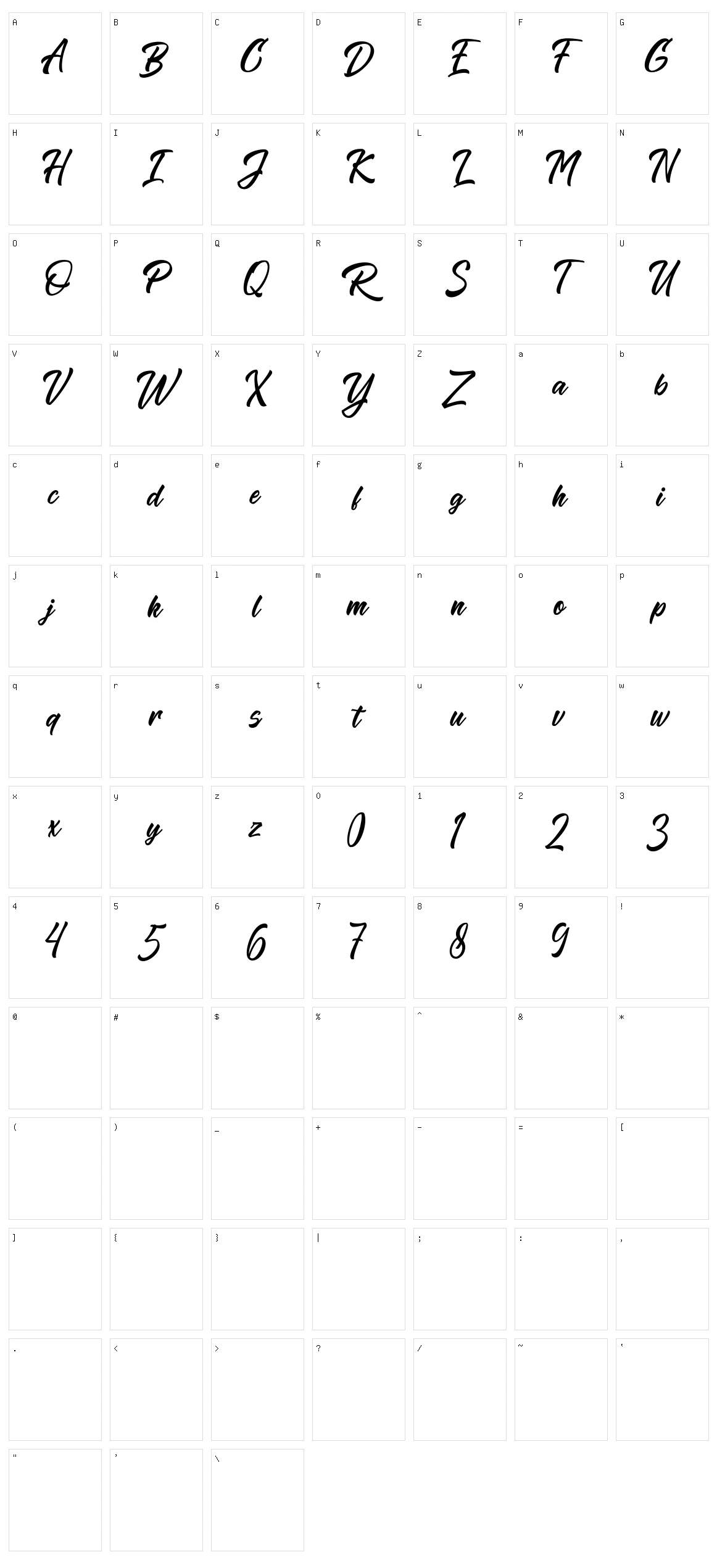
The free font The Razels is carefully designed by ijem, showcasing a thoughtful balance of creativity and usability and falls under the Script font style. When you download the ZIP file, it contains only 12.66 KB of font files, making it lightweight and quick to download. Please review the license details below to understand permitted usage and distribution rights. If license information is not available, we recommend using this font for personal projects only or contacting the author directly for commercial usage permissions.